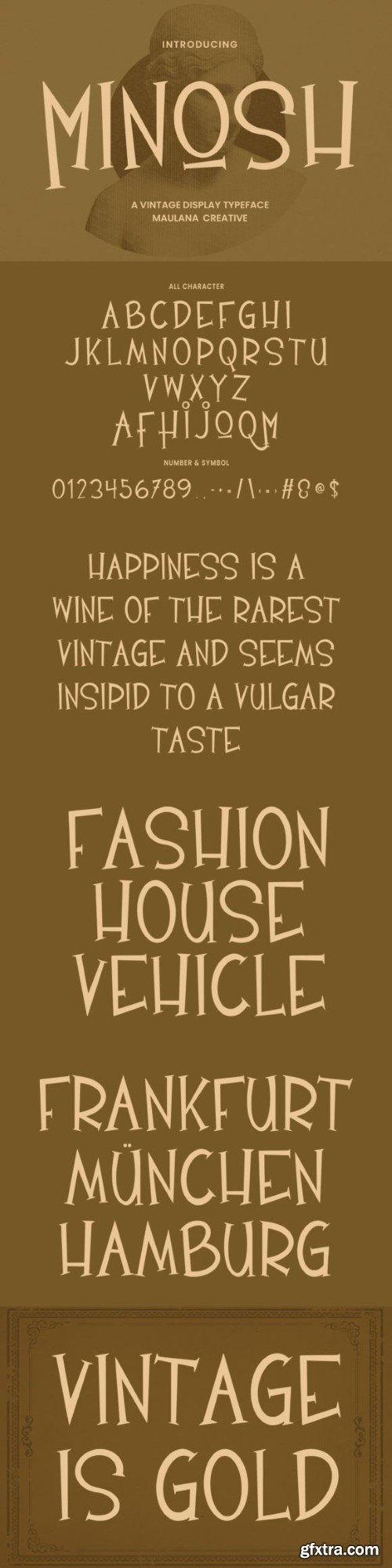
Minosh is a classic vintage display typeface that brings a touch of timeless elegance to your projects. With its unique character and old-school charm, this font adds a nostalgic flair to any design. Perfect for creating eye-catching headlines, logos, or posters, Minosh effortlessly blends a sense of history with a stylish edge. Give your work a vintage vibe with the simple and sophisticated appeal of Minosh.